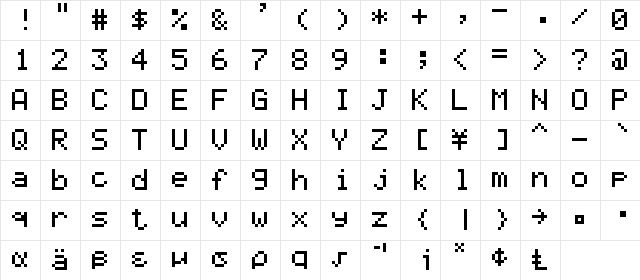
HD44780 Regular
Design Context for HD44780 Typeface
HD44780 takes a measured approach to typography — its balanced proportions and neutral character make it a reliable workhorse for both digital and print work.